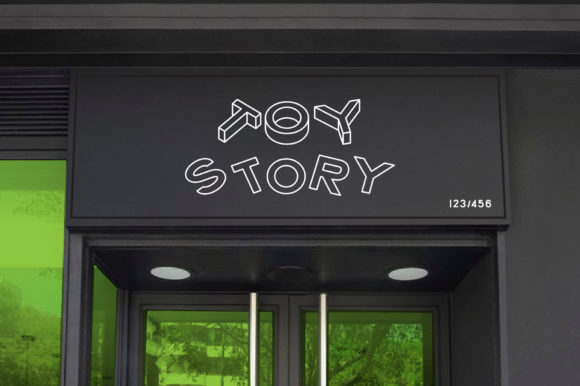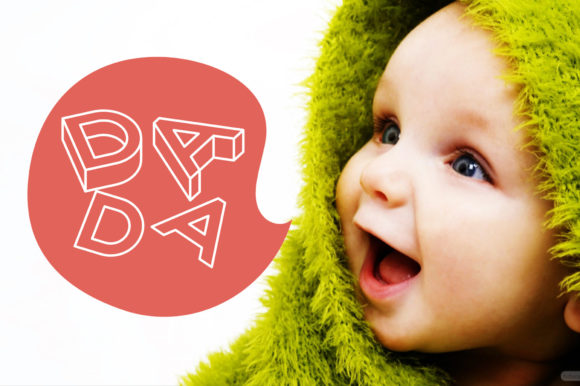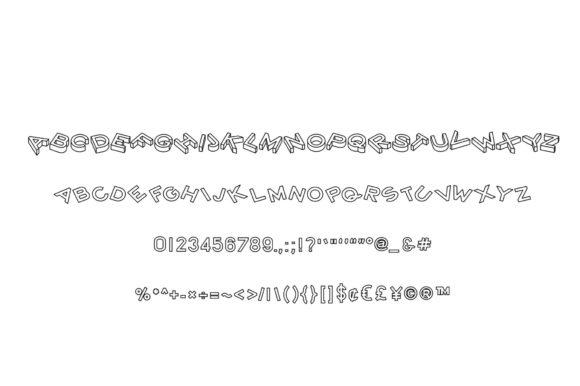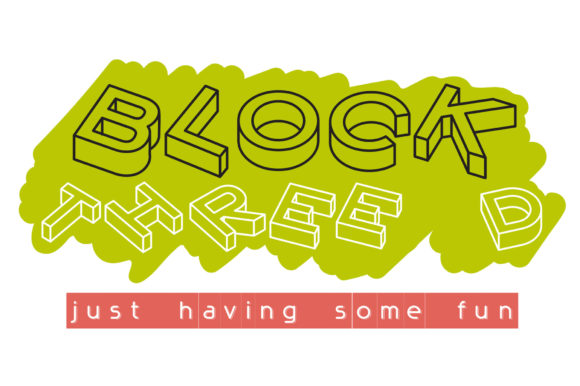
Introducing Block3D Font: A Simple yet Stylish Display Font
In the world of typography, a good font can make all the difference in the success of a design project. For designers and crafters looking for a unique and modern-looking display font, Block3D is an excellent choice. This simple yet stylish font is perfect for a wide range of crafty ideas, from letterheads and titles to stationery.
What is Block3D Font?
Block3D is a display font that features a distinctive, block-like design. Its unique look is characterized by clean lines, geometric shapes, and a modern aesthetic. The font is designed to be highly legible, making it perfect for use in a variety of design projects, from digital media to print materials.
Key Features of Block3D Font
- Unique and Modern Design: Block3D features a one-of-a-kind design that is both modern and stylish.
- High Legibility: The font is designed to be highly legible, making it perfect for use in a variety of design projects.
- Crafty and Versatile: Block3D is a versatile font that can be used in a wide range of crafty ideas, from letterheads and titles to stationery.
Uses of Block3D Font
Block3D is a versatile font that can be used in a wide range of design projects. Here are some ideas for using this font:
- Letterheads and Titles: Use Block3D to create bold and eye-catching letterheads and titles.
- Stationery: Add a touch of modern style to your stationery with Block3D.
- Digital Media: Use Block3D in digital media, such as social media graphics, blog posts, and website headers.
- Print Materials: Block3D is perfect for use in print materials, such as brochures, flyers, and posters.
Benefits of Using Block3D Font
There are many benefits to using Block3D in your design projects. Here are a few:
- Stand Out from the Crowd: Block3D is a unique font that will help your design projects stand out from the crowd.
- Modern and Fresh Look: The font features a modern and fresh look that will add a touch of style to your designs.
- Easy to Read: Block3D is highly legible, making it easy for readers to quickly and easily understand your message.
- Versatile: The font is versatile and can be used in a wide range of design projects.
Tips for Using Block3D Font
Here are a few tips for using Block3D in your design projects:
- Use it Boldly: Block3D is a bold font, so don’t be afraid to use it boldly in your designs.
- Experiment with Colors: The font looks great in a variety of colors, so experiment with different colors to find the one that works best for your design.
- Pair it with Other Fonts: Block3D can be paired with other fonts to create a unique and interesting look.
In conclusion, Block3D is a simple yet stylish font that is perfect for designers and crafters looking for a unique and modern-looking display font. Its clean lines, geometric shapes, and modern aesthetic make it a versatile font that can be used in a wide range of design projects. With its high legibility, ease of use, and bold look, Block3D is an excellent choice for anyone looking to add a touch of style to their designs.